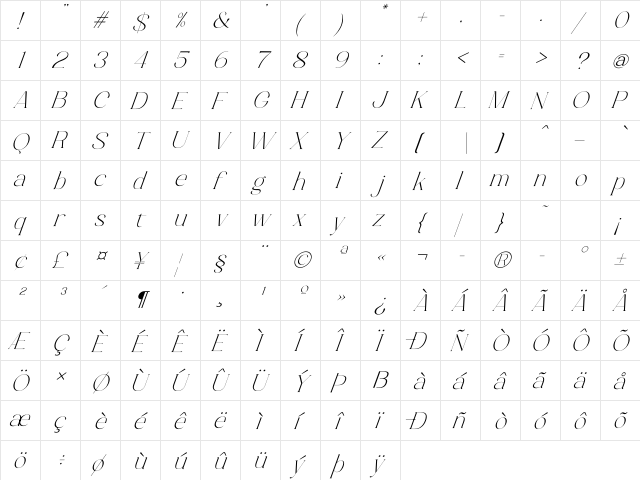
Luimp Light Italic Light
| Foundry | Kong Font |
| Designer | Kong Font |
Design Context for Luimp Light Italic Typeface
Luimp Light Italic takes a measured approach to typography — its balanced proportions and neutral character make it a reliable workhorse for both digital and print work. The slanted form adds forward momentum and visual energy. Its slender proportions lend an understated elegance to any composition.